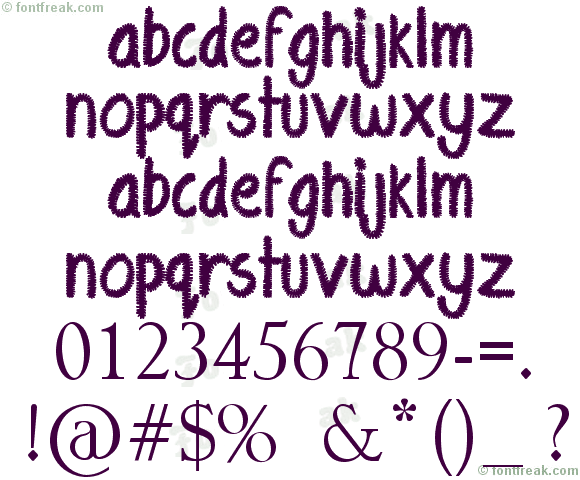
Eyeliner Tattoo
Eyeliner Tattoo by Jonathan S. Harris is a unique decorative font that captures a playful yet edgy aesthetic. This font stands out in the display category, making it an excellent choice for projects that require a touch of whimsy and character. The visual style of Eyeliner Tattoo features a distinctive handwritten appearance, characterized by its uneven stroke weight and playful, looping forms. The letters are adorned with decorative elements that mimic the look of hand-drawn ink, giving it a personal touch that feels both contemporary and artistic.
The spacing in Eyeliner Tattoo is thoughtfully designed, allowing for easy readability while maintaining a casual vibe. Its unique characteristics make it ideal for a variety of creative applications. This font shines in uses such as tattoo design branding, children’s party invitations, and quirky greeting cards. Additionally, it can add flair to restaurant menus that wish to convey a fun and relaxed atmosphere, as well as in promotional materials for beauty salons and tattoo parlors looking to attract a younger clientele.
Targeted towards graphic designers, small business owners, and content creators, Eyeliner Tattoo is a versatile choice that can elevate any project with its distinctive style. Its freeware license allows users to integrate this font into their designs without financial constraints, making it accessible for both personal and commercial use.
What truly sets Eyeliner Tattoo apart is its ability to evoke a sense of creativity and individuality. This font provides an ideal balance between art and readability, making it a standout choice for anyone looking to make a statement. Don't miss out—explore the Eyeliner Tattoo font free download today and let your designs speak with a distinctive voice.